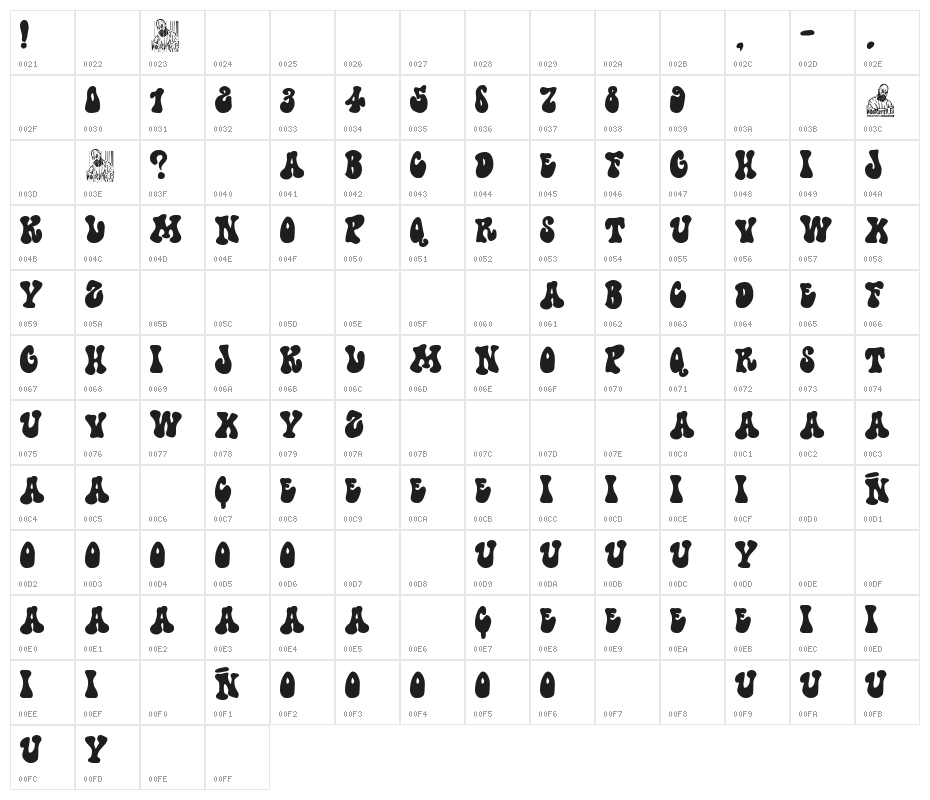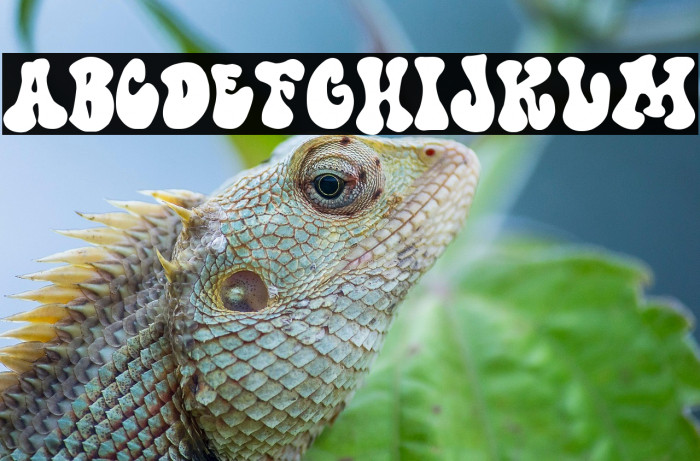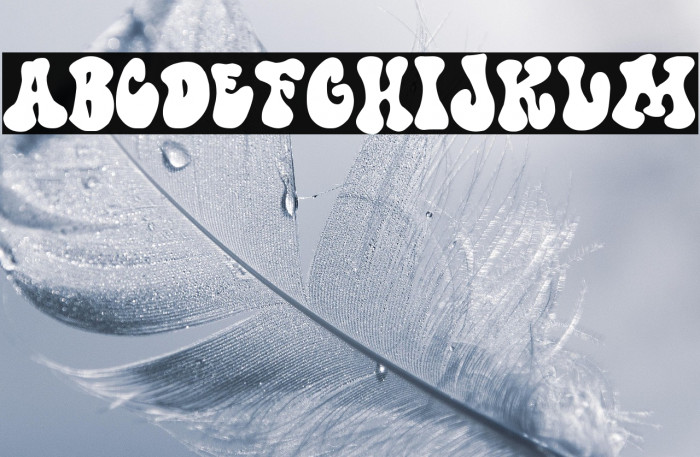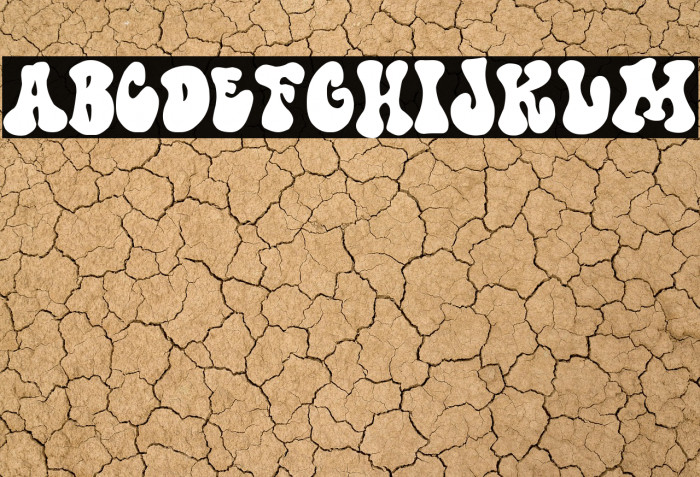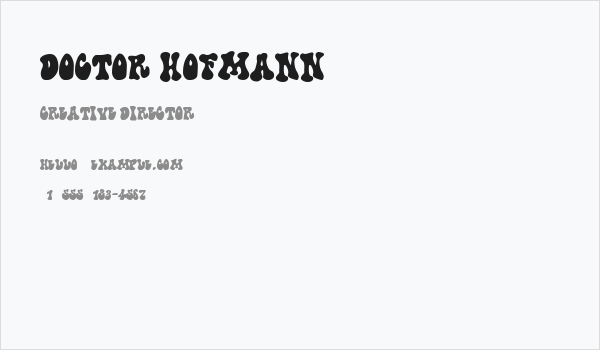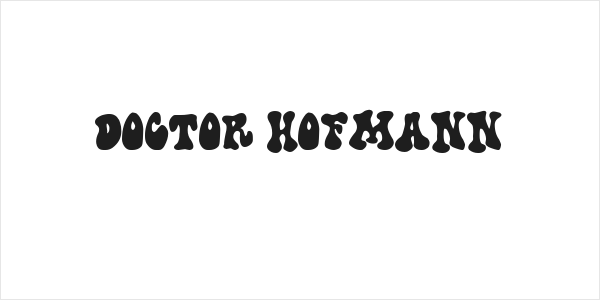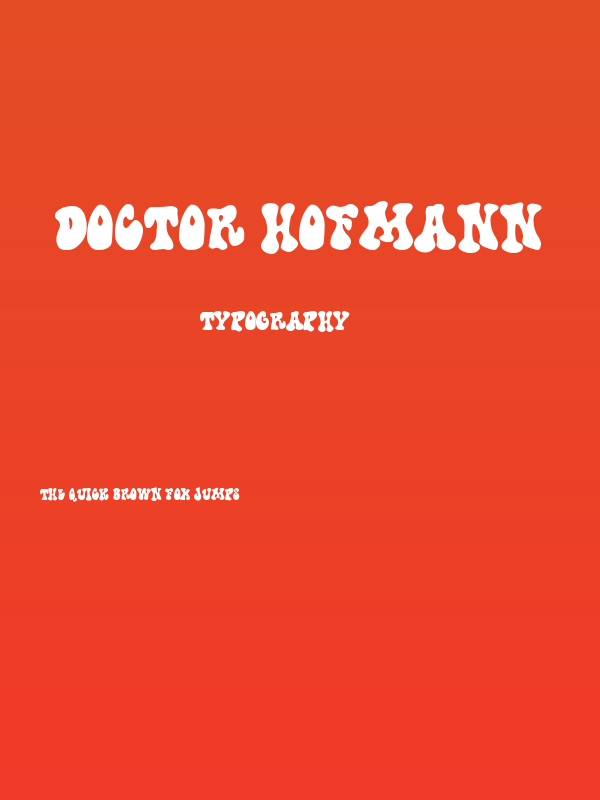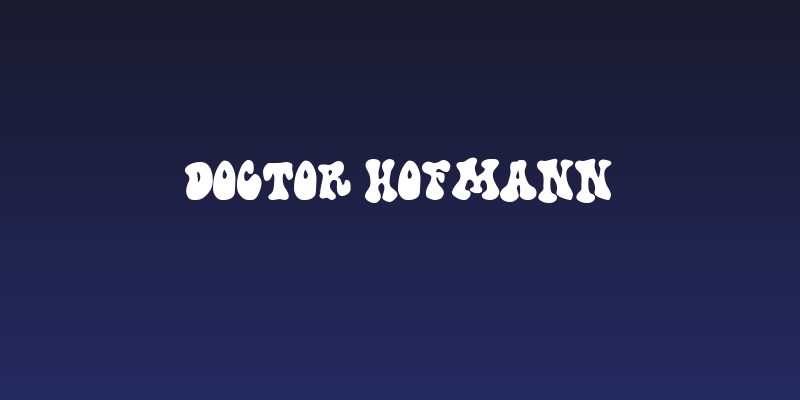
Doctor Hofmann Font
Doctor Hofmann Description
This font features a bold, playful design with a distinctly retro vibe. The characters are rounded and bulbous, giving them a soft, approachable appearance. The exaggerated curves and thick strokes create a sense of movement and energy, making it ideal for eye-catching designs. The font's unique style is reminiscent of psychedelic and pop art influences, with a whimsical and fun aesthetic. It maintains a consistent weight throughout, ensuring readability despite its decorative nature. The overall look is both nostalgic and modern, making it versatile for various creative applications.
| Overall Style | Vintage |
| Use Case | Logos, Posters, Branding |
| Proposed Projects | Ideal for posters, album covers, branding projects, and any design seeking a vintage or playful touch. |